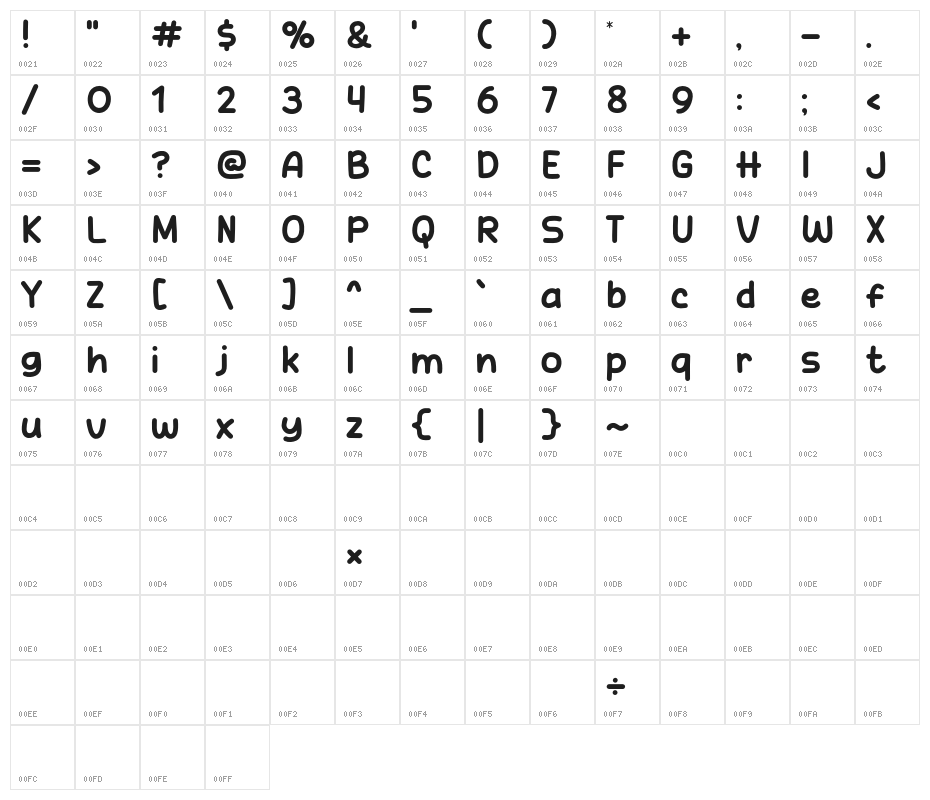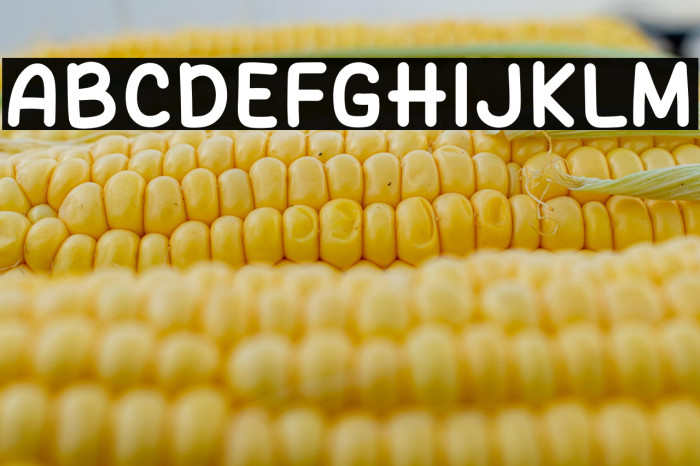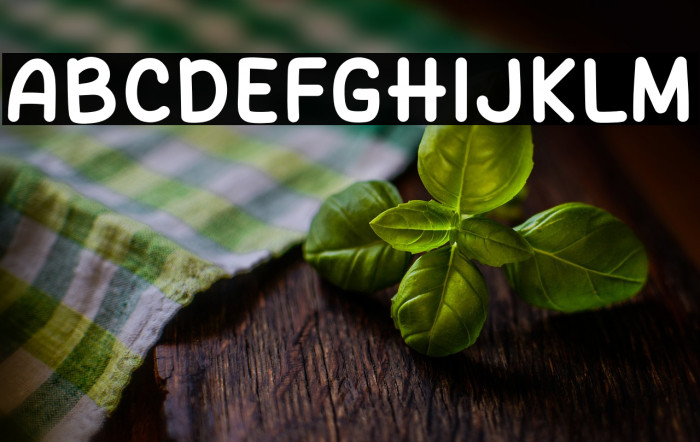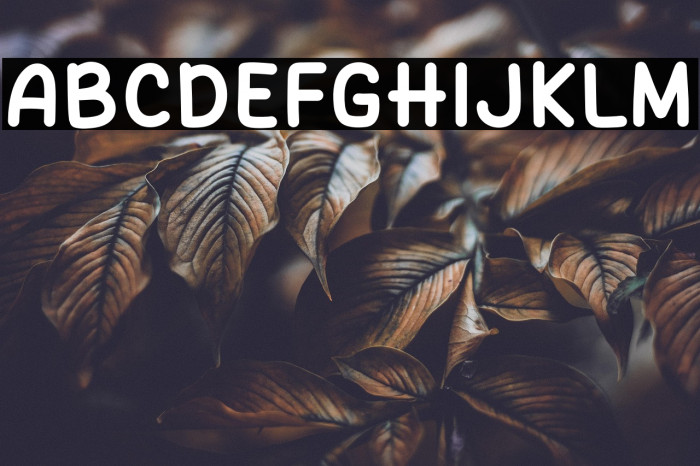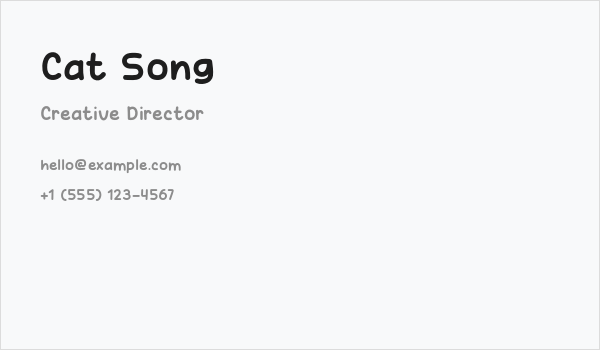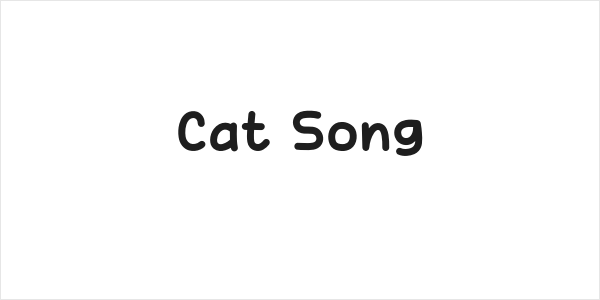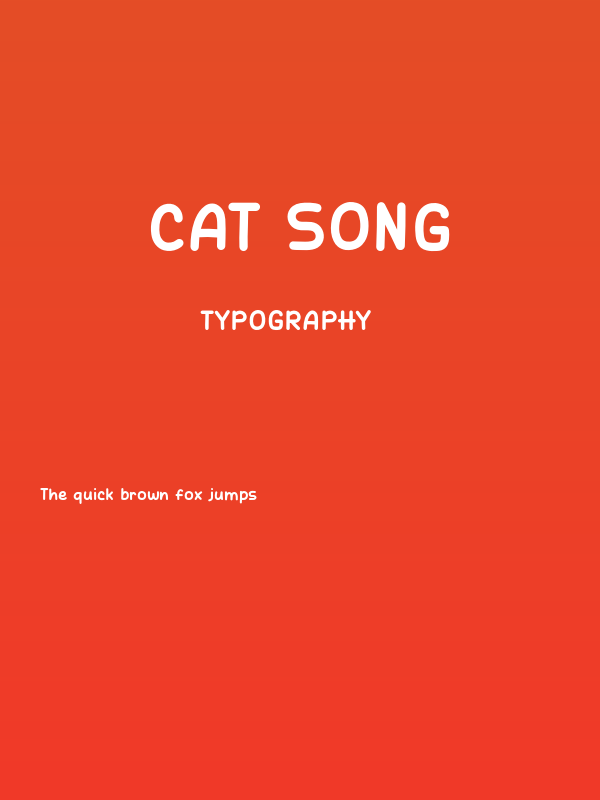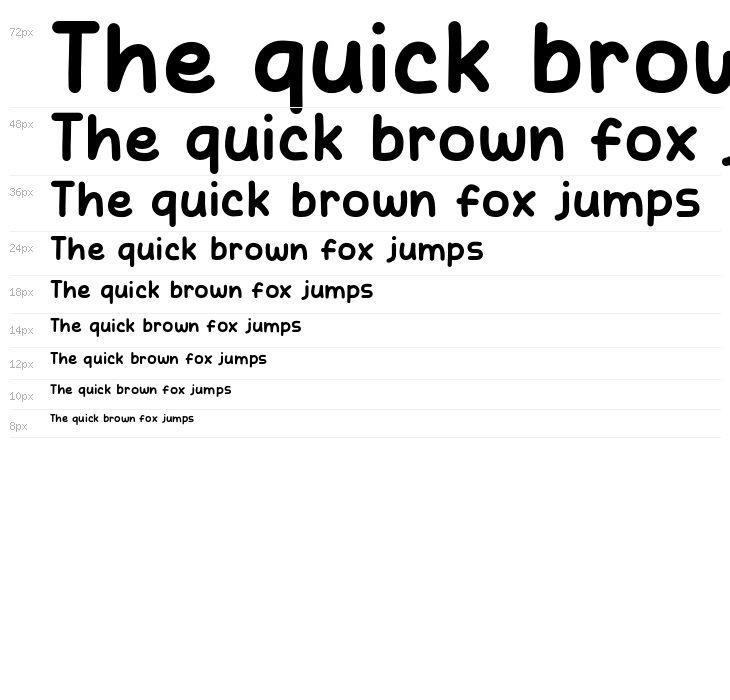
Cat Song Font
Cat Song Description
This playful and rounded font exudes a friendly and approachable vibe, with its smooth curves and consistent stroke width. The letters are evenly spaced, providing a clean and uncluttered appearance. Its simplicity and warmth make it suitable for a variety of informal and fun projects. The font maintains a uniform weight throughout, ensuring readability while adding a touch of whimsy. The characters are well-proportioned, with a slight emphasis on circular forms, enhancing its inviting nature. This font is perfect for projects that require a lighthearted and cheerful touch.
| Proposed Projects | Ideal for children's books, playful branding, casual invitations, and educational materials. |